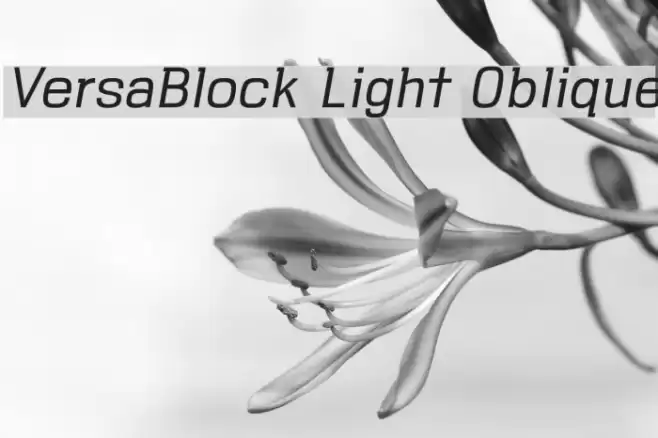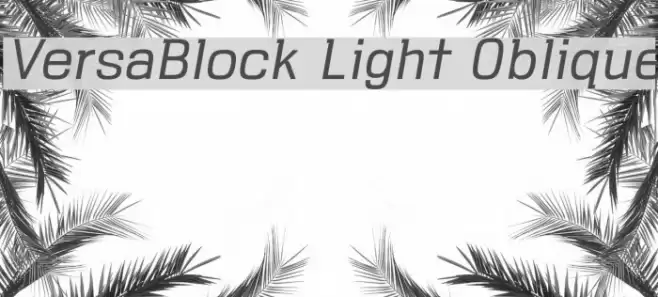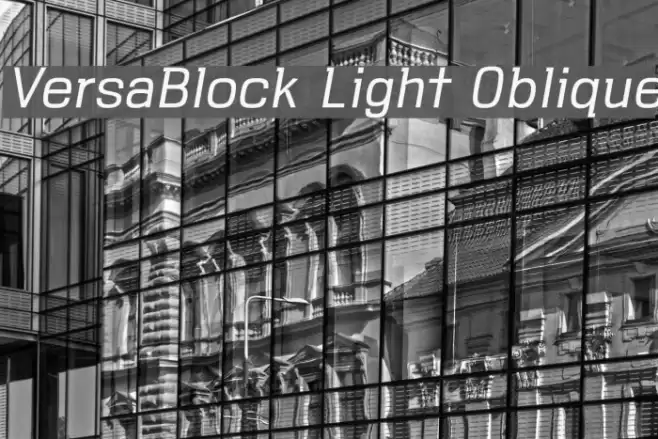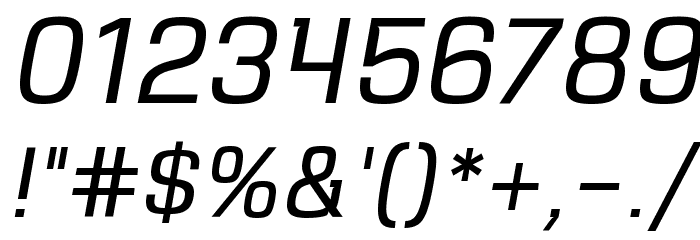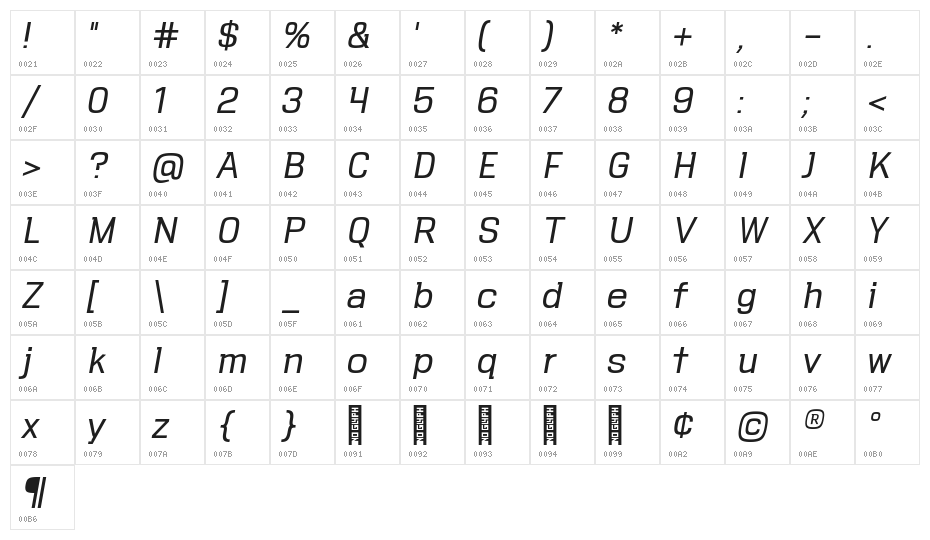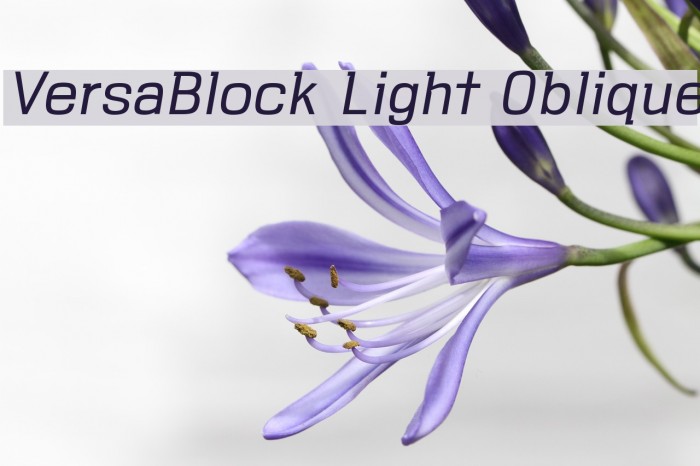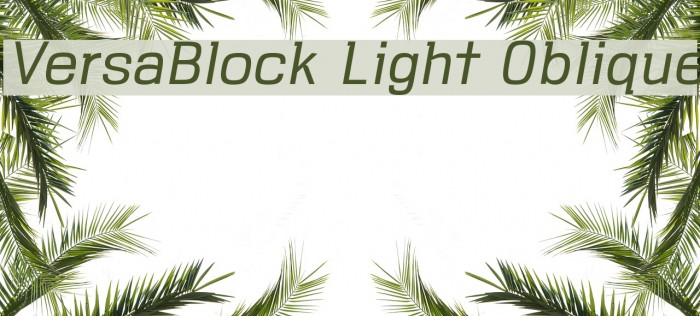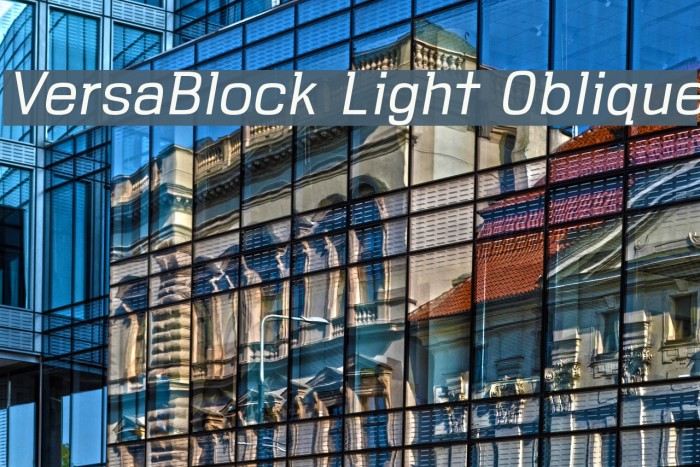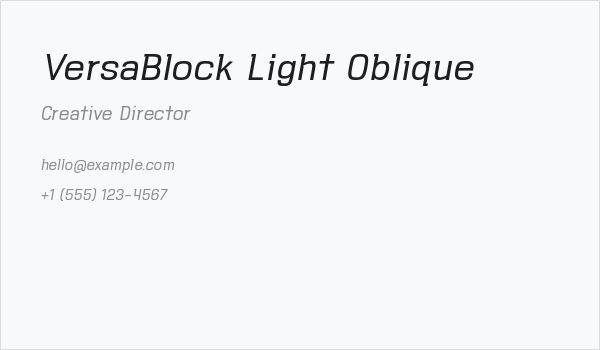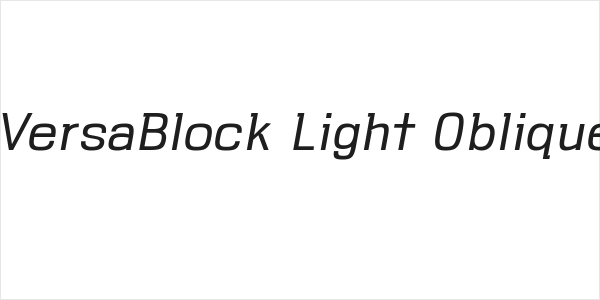
VersaBlock Light Oblique Font
VersaBlock Light Oblique Description
This font exhibits a sleek and modern design with a slightly oblique orientation, giving it a dynamic and forward-leaning appearance. The characters are clean and well-defined, with a consistent stroke width that contributes to its light and airy feel. The sans-serif style ensures readability and versatility, making it suitable for various applications. The spacing between characters is balanced, providing a harmonious flow across text. The overall aesthetic is contemporary, making it ideal for projects that require a fresh and professional look.
A modern, oblique sans-serif font with a light and clean design from Uncategorized fonts.
- Proposed Projects: Ideal for branding, advertising, digital interfaces, and editorial design.